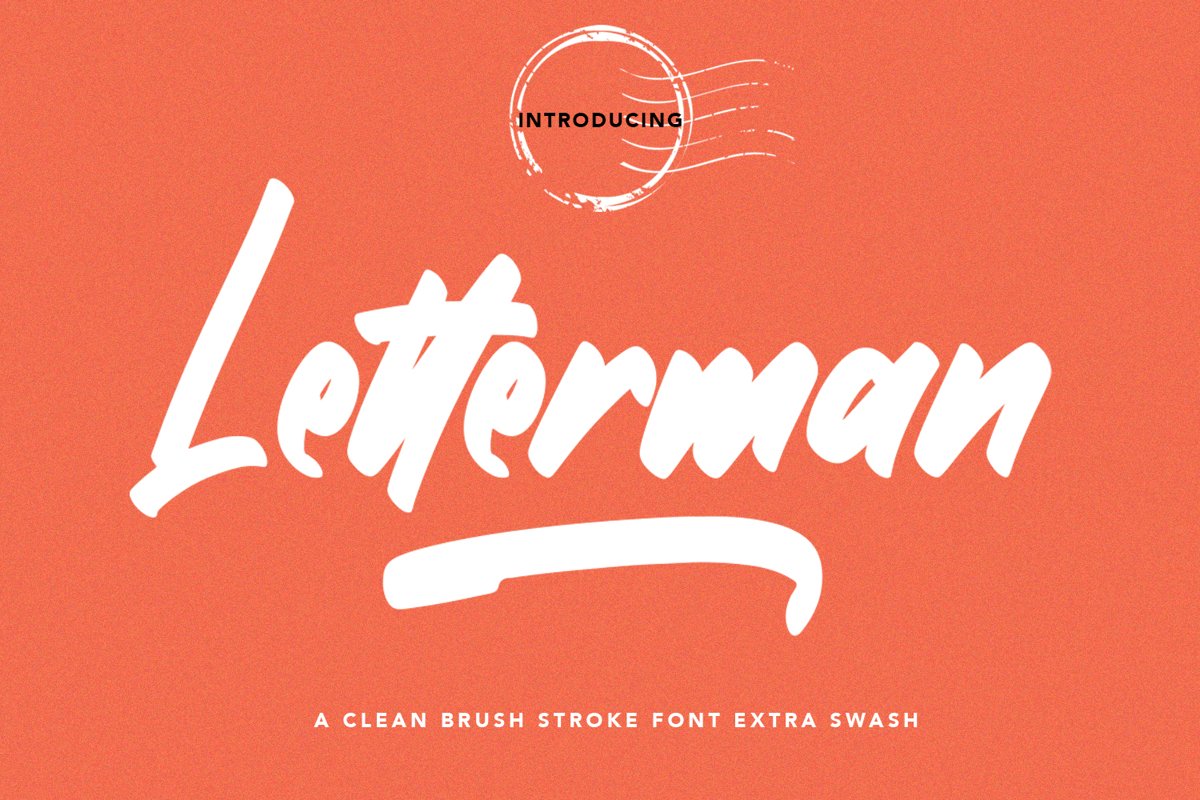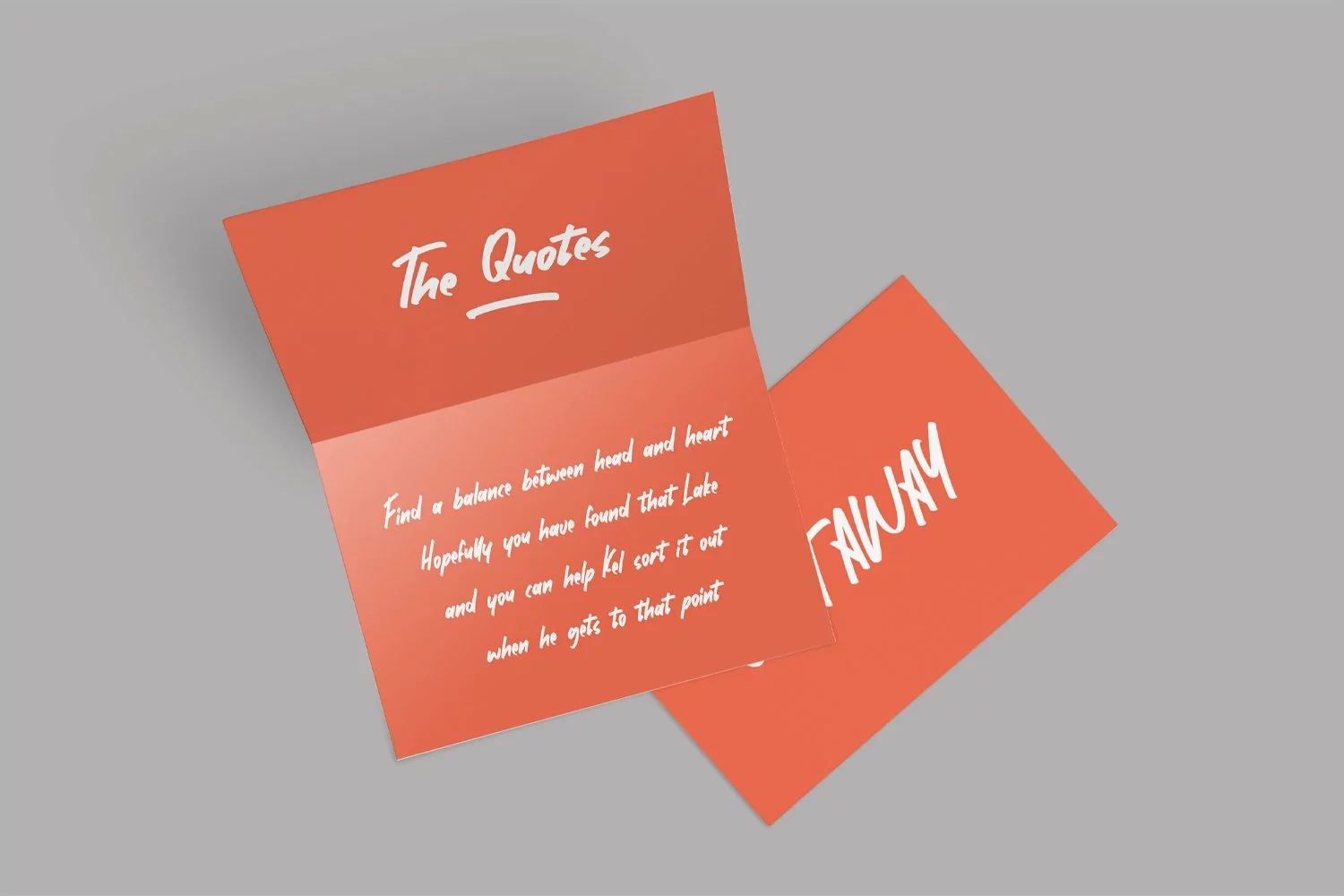
Letterman - Clean Brush Font that contain lowercase, uppercase, symbol, and also support multi language. There’s a lot ligatures in this font. This Font also comes with ligatures, alternates and many more. this font suitable for fashion, branding, catalog and other design what you want.
Letterman